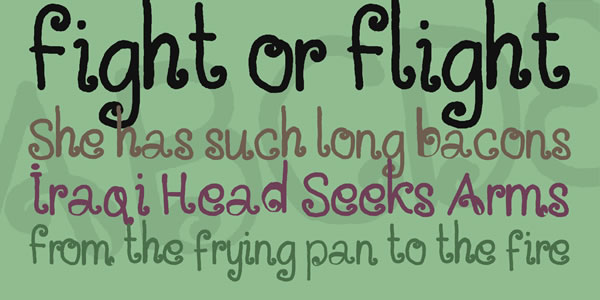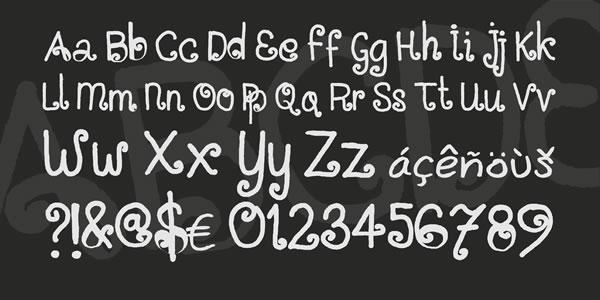
Introduction to Situjuh Hand Font
We’ve all been there – staring at a blank canvas, struggling to find the perfect font to bring our creative project to life. The search for that elusive ‘just-right’ font can be a tedious and time-consuming task. But what if I told you that there’s a font out there that’s been crafted with love and care, just for designers like us?
Meet Situjuh Hand Font, a high-quality, handcrafted font created by the talented Situjuh Nazara. This beautiful font boasts a transparent background, making it the perfect design resource for any creative project. And the best part? It’s available for free download, making it a valuable addition to any designer’s toolkit.
Key Features of Situjuh Hand Font
- Unique, handwritten design perfect for creative projects requiring a high quality, personal touch.
- Exclusive to the Situjuh Hand Font, its unique characteristics include subtle variations in letterforms, giving it a truly hand-crafted feel.
Honest Review: Situjuh Hand Font
As a designer, I’m always on the lookout for high-quality fonts that can elevate my creative projects. Recently, I stumbled upon the Situjuh Hand Font, and I must say it’s a great addition to my design resource library.
- ✨ Unique and stylish design that can add a personal touch to any project
- ✨ Transparent background, allowing for easy customization and layering
- ✨ Suitable for a wide range of creative projects, from branding to editorial design
- ⚠️ Limited character set, which may be a concern for designers who need to work with a large number of characters
- ⚠️ Not suitable for small font sizes, as the design may become distorted
Overall, I’m impressed with the Situjuh Hand Font. While it has its limitations, its unique design and free download make it a valuable resource for designers. If you’re looking for a high-quality font to add a personal touch to your creative project, I’d definitely recommend giving it a try.
Situjuh Hand Font
The Situjuh Hand Font is a unique and creative design resource that can elevate your projects to the next level. This high-quality font is perfect for designers and artists looking to add a personal touch to their work.
Use the Situjuh Hand Font on a transparent background to create a beautiful and eye-catching design.
Experiment with different font sizes and styles to create a unique look.
The Situjuh Hand Font is perfect for:
Branding and logo design
Photography captions and quotes